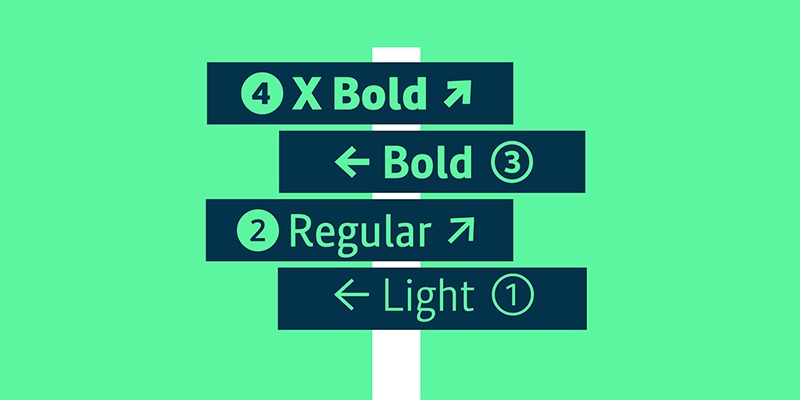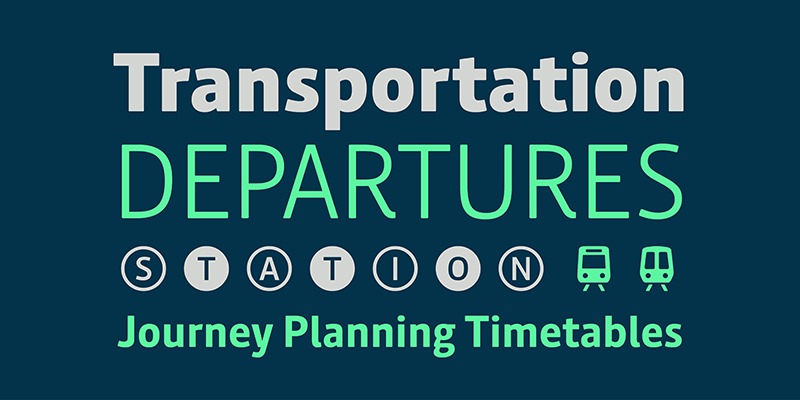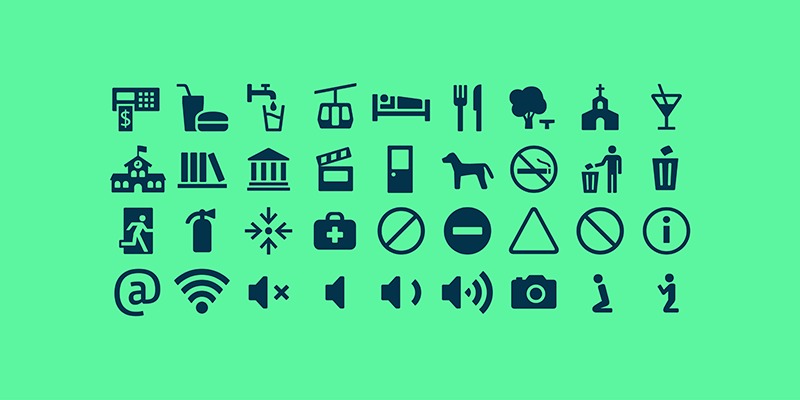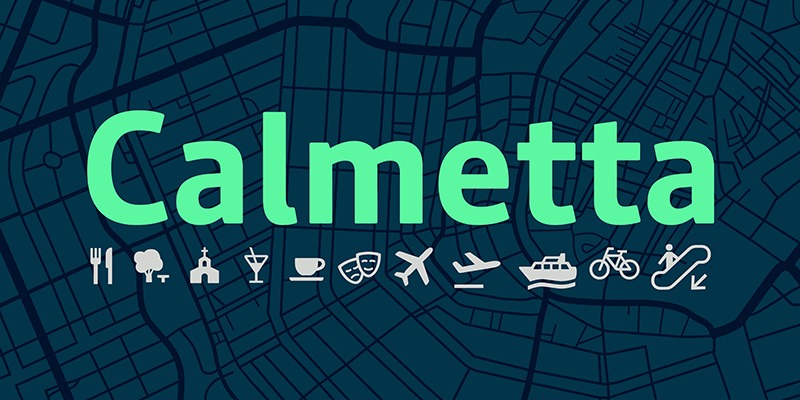
Calmetta Sans Serif Font is a soft & modern geometric type family. Made from font designer named daltonmaag. MADE Calmetta will perfect for many project: fashion, magazines, logo, branding, photography, invitations, wedding invitation, quotes, blog header, poster, advertisements, postcard, book, websites, etc.